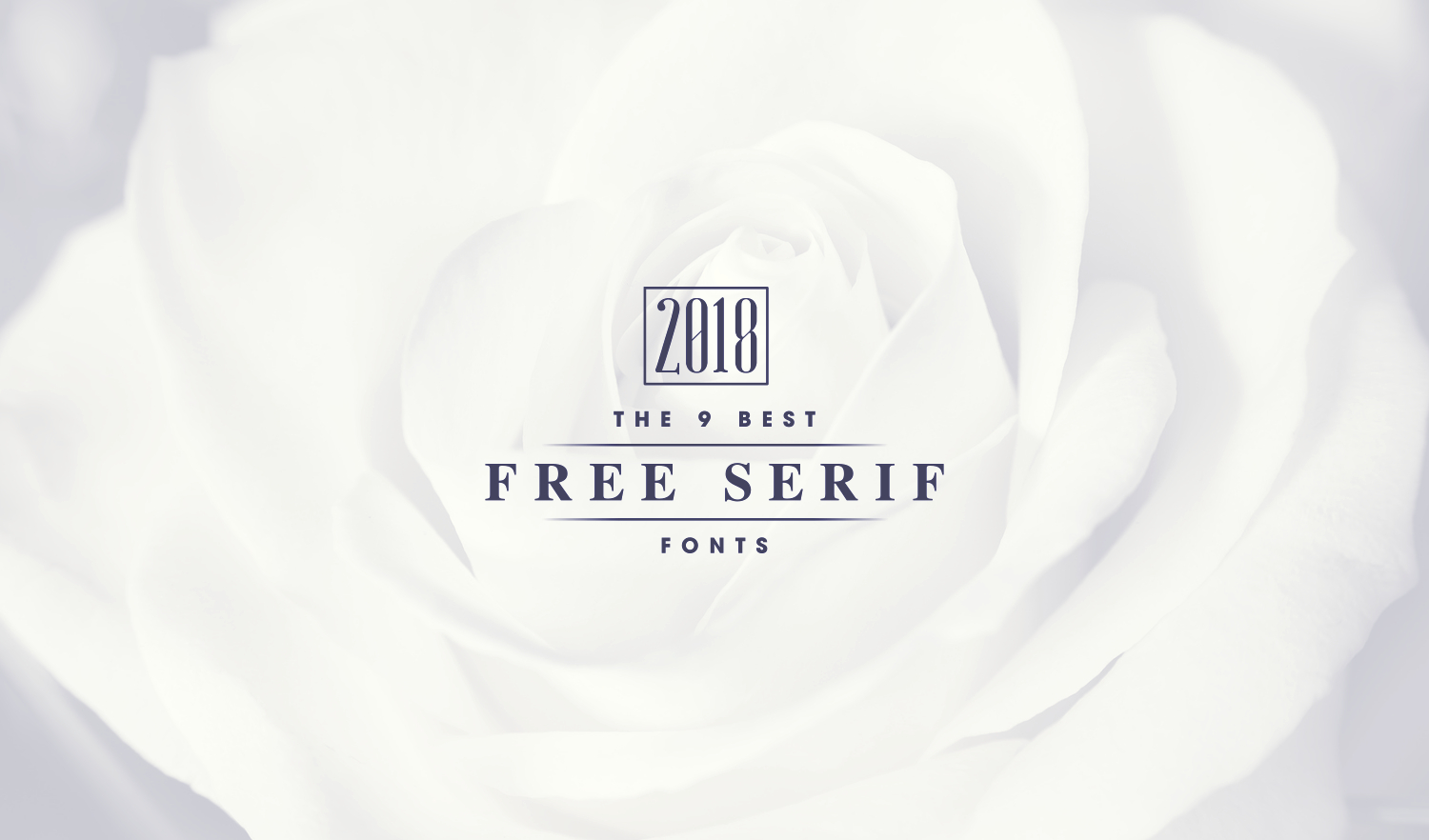
100 Best Modern Serif Fonts 2021 Design Shack. The style of this font are minimalist, signature, modern, elegant, luxury These serif fonts are typically used in newspapers, because they make reading quick and easy. Serif fonts have small lines that carry outside of the natural lines of a letter, where as sans serif are like block lettering, without the extra decoration. Microsoft sans serif font is a very legible user interface (ui) font. For example, the title font for a quora question is. Serif display and signature script. It was designed to be metrically compatible with the ms sans bitmap font that shipped in early versions of microsoft windows. Sans is latin for 'without', so sans serif describes a font that is without serifs. Serif typefaces have small projections at the ends of the letter strokes. It's not specific to word. Midline font duo is a two different font styles : Serif fonts are used for body text because they are very easy to read. Download the best free serif fonts that are hand picked collections by our editorial experts and can be used on mac, pc, website. Ms reference serif, various, msreferenceserif.ttf, msreferenceserifbold.ttf, msreferenceserifbolditalic.ttf, msreferenceserifitalic.ttf, refserb.ttf, refserbi.ttf, refseri.ttf, windows font. In order to download microsoft sans serif font, please verify yourself.
Serif fonts are used for body text because they are very easy to read.
10 Best Serif Fonts For Clean Elegant Logo Design Just Creative. Serif typefaces have small projections at the ends of the letter strokes. Microsoft sans serif font is a very legible user interface (ui) font. It was designed to be metrically compatible with the ms sans bitmap font that shipped in early versions of microsoft windows. Midline font duo is a two different font styles : Serif fonts have small lines that carry outside of the natural lines of a letter, where as sans serif are like block lettering, without the extra decoration. Serif display and signature script. Sans is latin for 'without', so sans serif describes a font that is without serifs. In order to download microsoft sans serif font, please verify yourself. For example, the title font for a quora question is. Serif fonts are used for body text because they are very easy to read. These serif fonts are typically used in newspapers, because they make reading quick and easy. Download the best free serif fonts that are hand picked collections by our editorial experts and can be used on mac, pc, website. The style of this font are minimalist, signature, modern, elegant, luxury It's not specific to word. Ms reference serif, various, msreferenceserif.ttf, msreferenceserifbold.ttf, msreferenceserifbolditalic.ttf, msreferenceserifitalic.ttf, refserb.ttf, refserbi.ttf, refseri.ttf, windows font.
10 Best Serif Fonts For Clean Elegant Logo Design Just Creative. Serif typefaces have small projections at the ends of the letter strokes. Serif display and signature script. It's not specific to word. These serif fonts are typically used in newspapers, because they make reading quick and easy. Ms reference serif, various, msreferenceserif.ttf, msreferenceserifbold.ttf, msreferenceserifbolditalic.ttf, msreferenceserifitalic.ttf, refserb.ttf, refserbi.ttf, refseri.ttf, windows font. Midline font duo is a two different font styles : Download the best free serif fonts that are hand picked collections by our editorial experts and can be used on mac, pc, website. Serif fonts are used for body text because they are very easy to read. Serif fonts have small lines that carry outside of the natural lines of a letter, where as sans serif are like block lettering, without the extra decoration. For example, the title font for a quora question is. In order to download microsoft sans serif font, please verify yourself. The style of this font are minimalist, signature, modern, elegant, luxury Sans is latin for 'without', so sans serif describes a font that is without serifs. It was designed to be metrically compatible with the ms sans bitmap font that shipped in early versions of microsoft windows. Microsoft sans serif font is a very legible user interface (ui) font.
Download Free Ms Reference Serif Italic Font Dafontfree Net. Serif fonts have small lines that carry outside of the natural lines of a letter, where as sans serif are like block lettering, without the extra decoration. Download the best free serif fonts that are hand picked collections by our editorial experts and can be used on mac, pc, website. Midline font duo is a two different font styles : It was designed to be metrically compatible with the ms sans bitmap font that shipped in early versions of microsoft windows. The style of this font are minimalist, signature, modern, elegant, luxury Ms reference serif, various, msreferenceserif.ttf, msreferenceserifbold.ttf, msreferenceserifbolditalic.ttf, msreferenceserifitalic.ttf, refserb.ttf, refserbi.ttf, refseri.ttf, windows font. Serif display and signature script. In order to download microsoft sans serif font, please verify yourself. For example, the title font for a quora question is. Serif fonts are used for body text because they are very easy to read. Microsoft sans serif font is a very legible user interface (ui) font. These serif fonts are typically used in newspapers, because they make reading quick and easy. Sans is latin for 'without', so sans serif describes a font that is without serifs. It's not specific to word. Serif typefaces have small projections at the ends of the letter strokes.
100 Best Modern Serif Fonts 2021 Design Shack. Download the best free serif fonts that are hand picked collections by our editorial experts and can be used on mac, pc, website. Serif fonts are used for body text because they are very easy to read. Ms reference serif, various, msreferenceserif.ttf, msreferenceserifbold.ttf, msreferenceserifbolditalic.ttf, msreferenceserifitalic.ttf, refserb.ttf, refserbi.ttf, refseri.ttf, windows font. In order to download microsoft sans serif font, please verify yourself. These serif fonts are typically used in newspapers, because they make reading quick and easy. It was designed to be metrically compatible with the ms sans bitmap font that shipped in early versions of microsoft windows. It's not specific to word. The style of this font are minimalist, signature, modern, elegant, luxury Serif fonts have small lines that carry outside of the natural lines of a letter, where as sans serif are like block lettering, without the extra decoration. For example, the title font for a quora question is. Sans is latin for 'without', so sans serif describes a font that is without serifs. Serif display and signature script. Microsoft sans serif font is a very legible user interface (ui) font. Midline font duo is a two different font styles : Serif typefaces have small projections at the ends of the letter strokes.
Google fonts now supports variable fonts. Download the best free serif fonts that are hand picked collections by our editorial experts and can be used on mac, pc, website. Arial unicode ms (distributed along with microsoft office (2002xp, 2003). Browse by alphabetical listing, by style, by author or by popularity. Ms reference serif, various, msreferenceserif.ttf, msreferenceserifbold.ttf, msreferenceserifbolditalic.ttf, msreferenceserifitalic.ttf, refserb.ttf, refserbi.ttf, refseri.ttf, windows font. Pick any font, and apply the same way. Download free serif fonts for commercial and personal use. (fonts without serifs are called sans serif fonts.) serif fonts are popular and have been around for many years. Both with 20,609 latin/cyrillic/cjk glyphs in version 2.11.